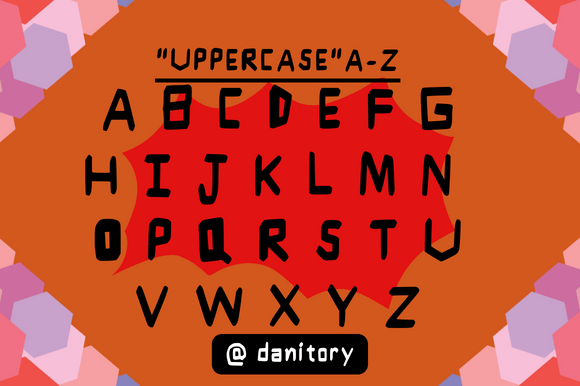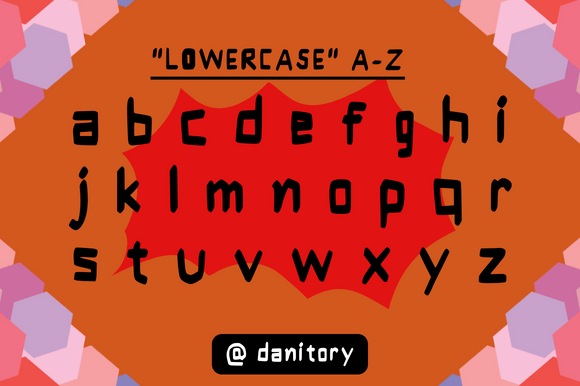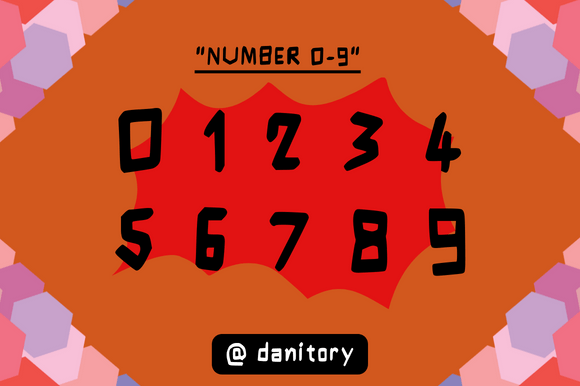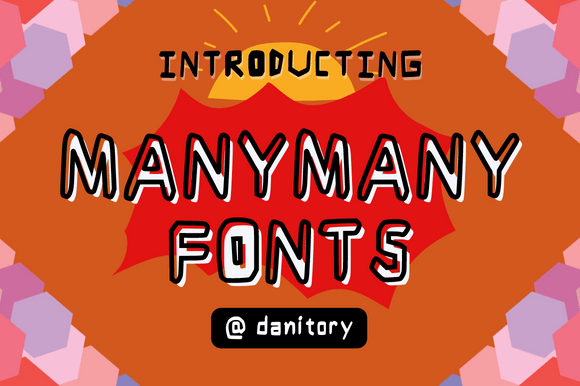
Introduction to Manymany Font
Manymany is a display font designed with straight, easy-to-understand, and cool features.
With this font, you can make your activities more fun Just use this font for your various design projects like t-shirt designs, posters, etc.
Manymany Font offers exceptional quality and versatility, making it a valuable addition to your design toolkit. Whether you’re creating for personal projects or commercial use, Manymany Font delivers professional results.